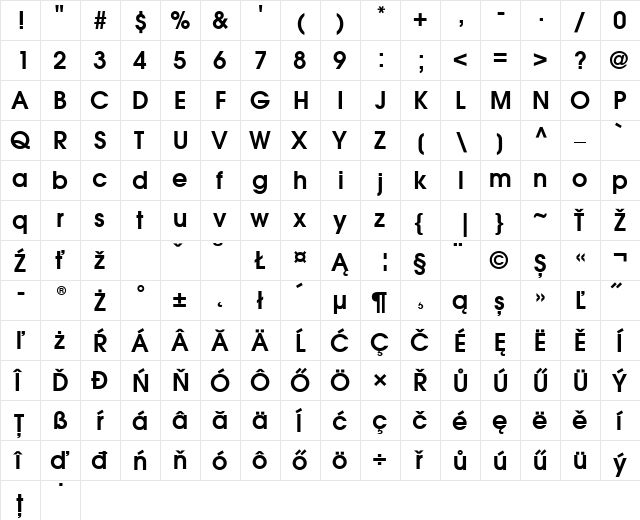
Avant Garde CE Demi Font Preview
Avant Garde CE Demi
Design Context for Avant Garde CE Typeface
Avant Garde CE takes a measured approach to typography — its balanced proportions and neutral character make it a reliable workhorse for both digital and print work.